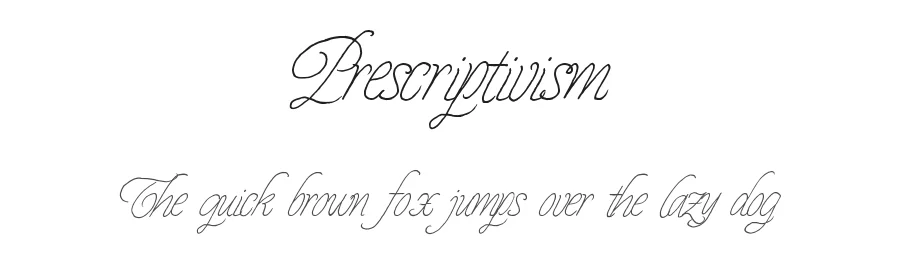
About Stamped Envelopes Font
| Designer | Max Infeld Xerographer Fonts |
Stamped Envelopes Font is a script font that shines as a display or heading face. Pair it with a clean sans-serif or serif font for body text β the contrast creates a clear hierarchy while the two styles stay balanced and easy to read.